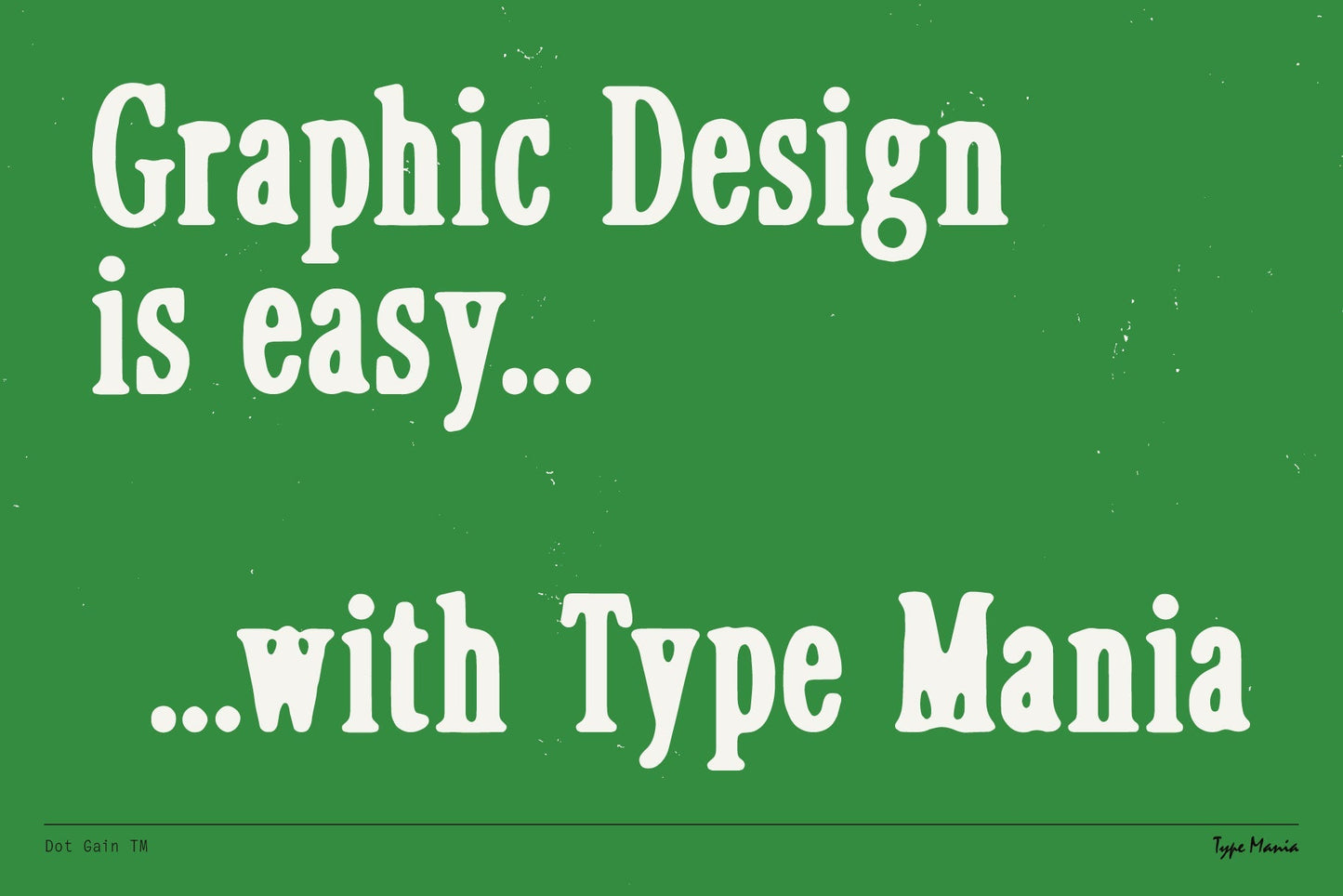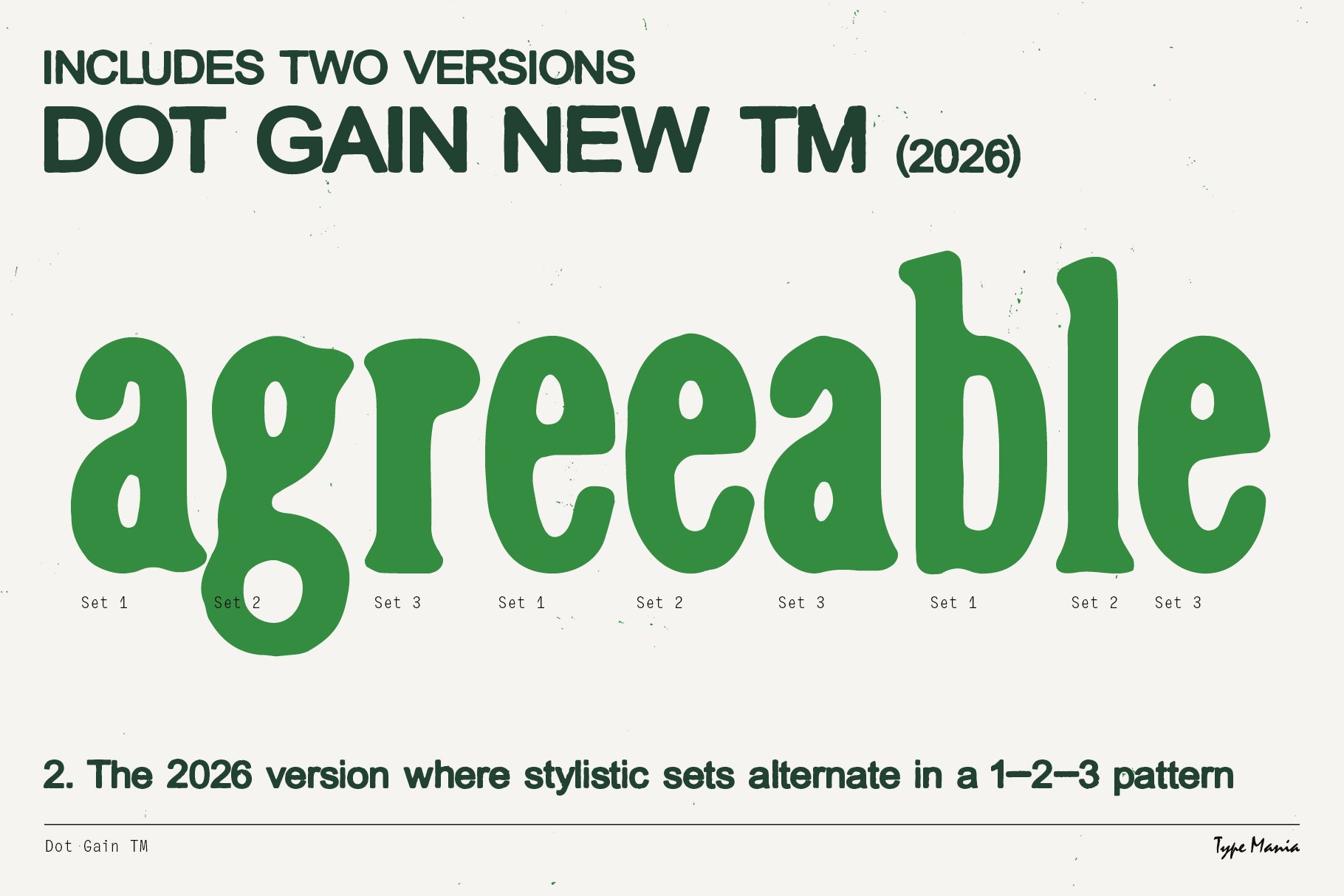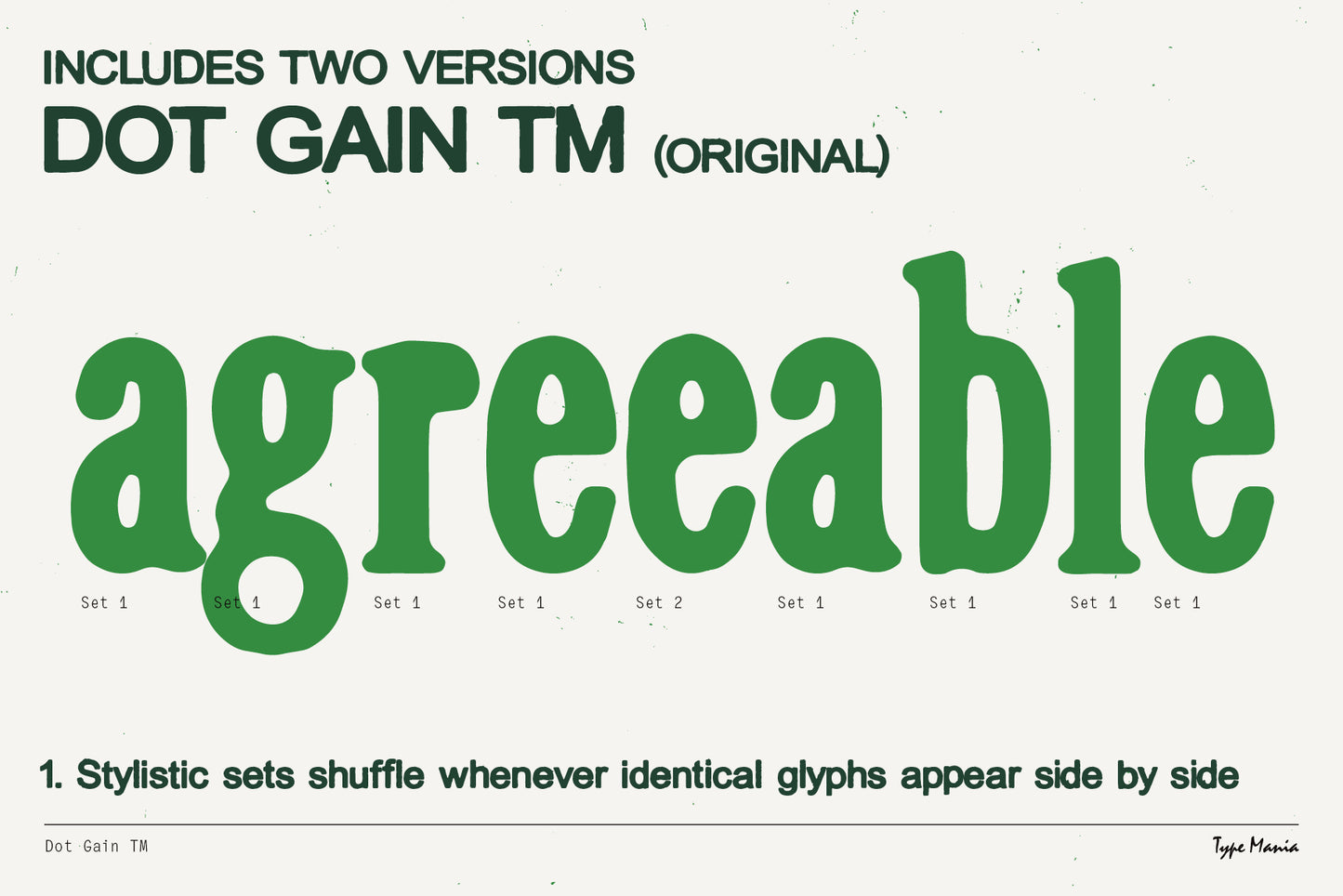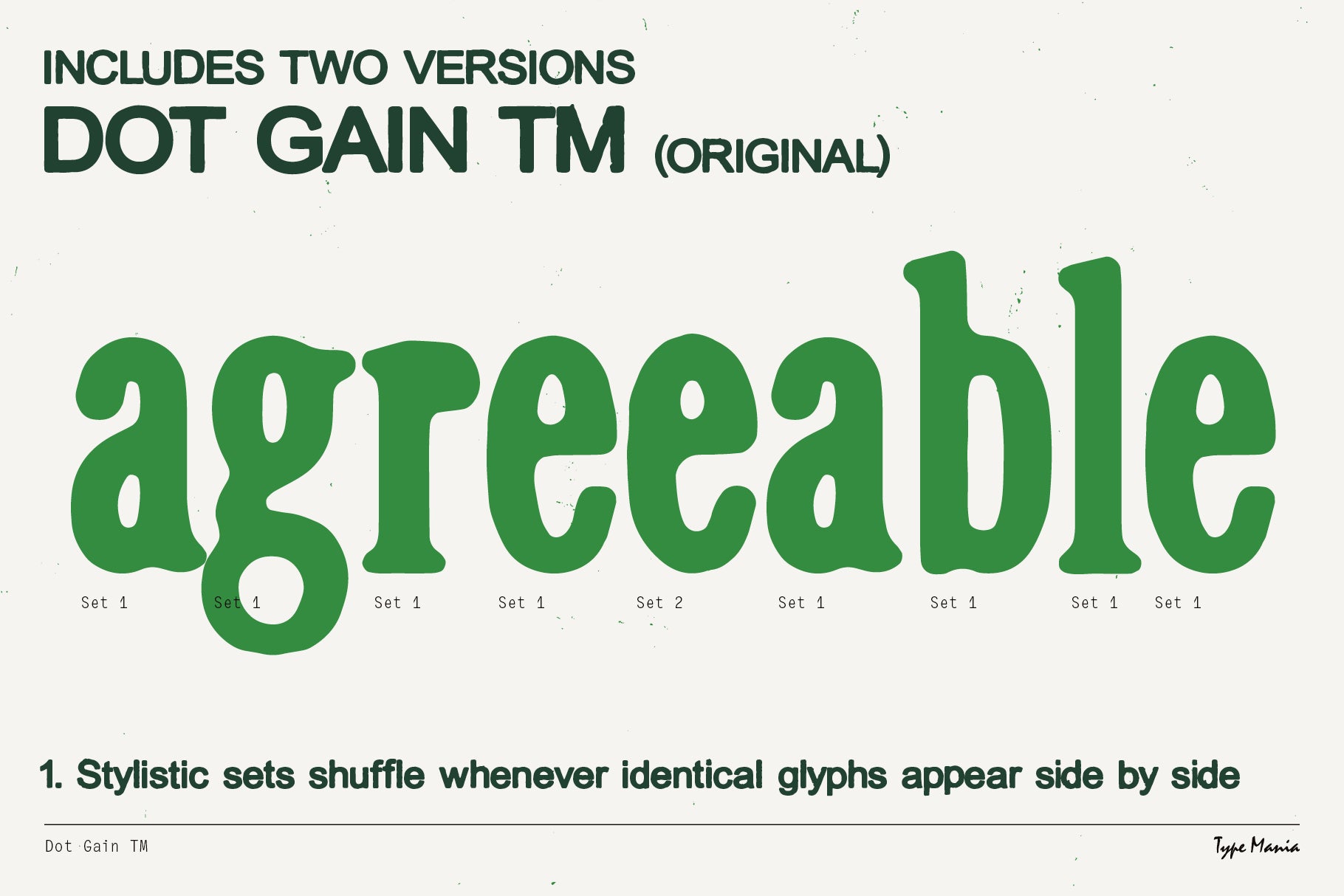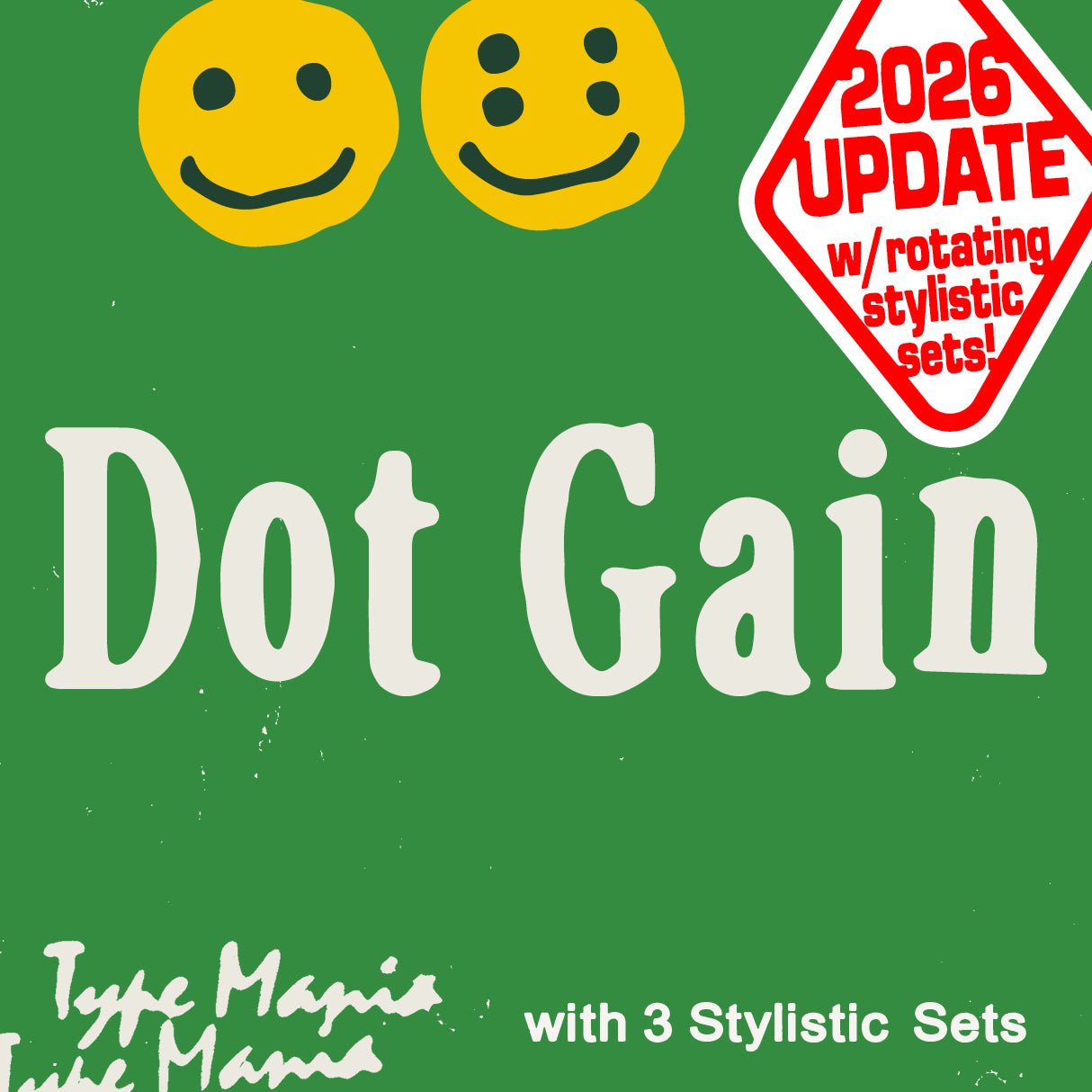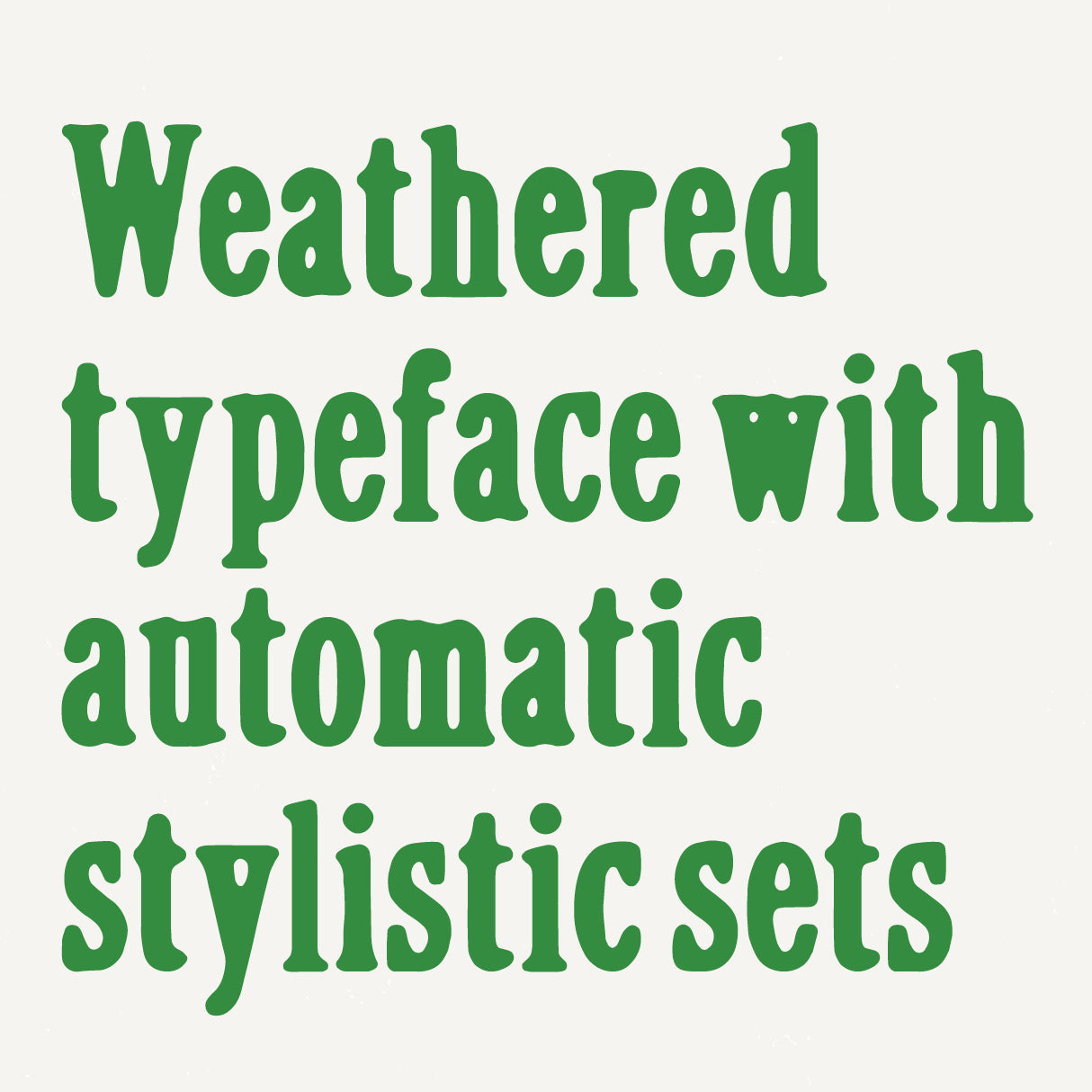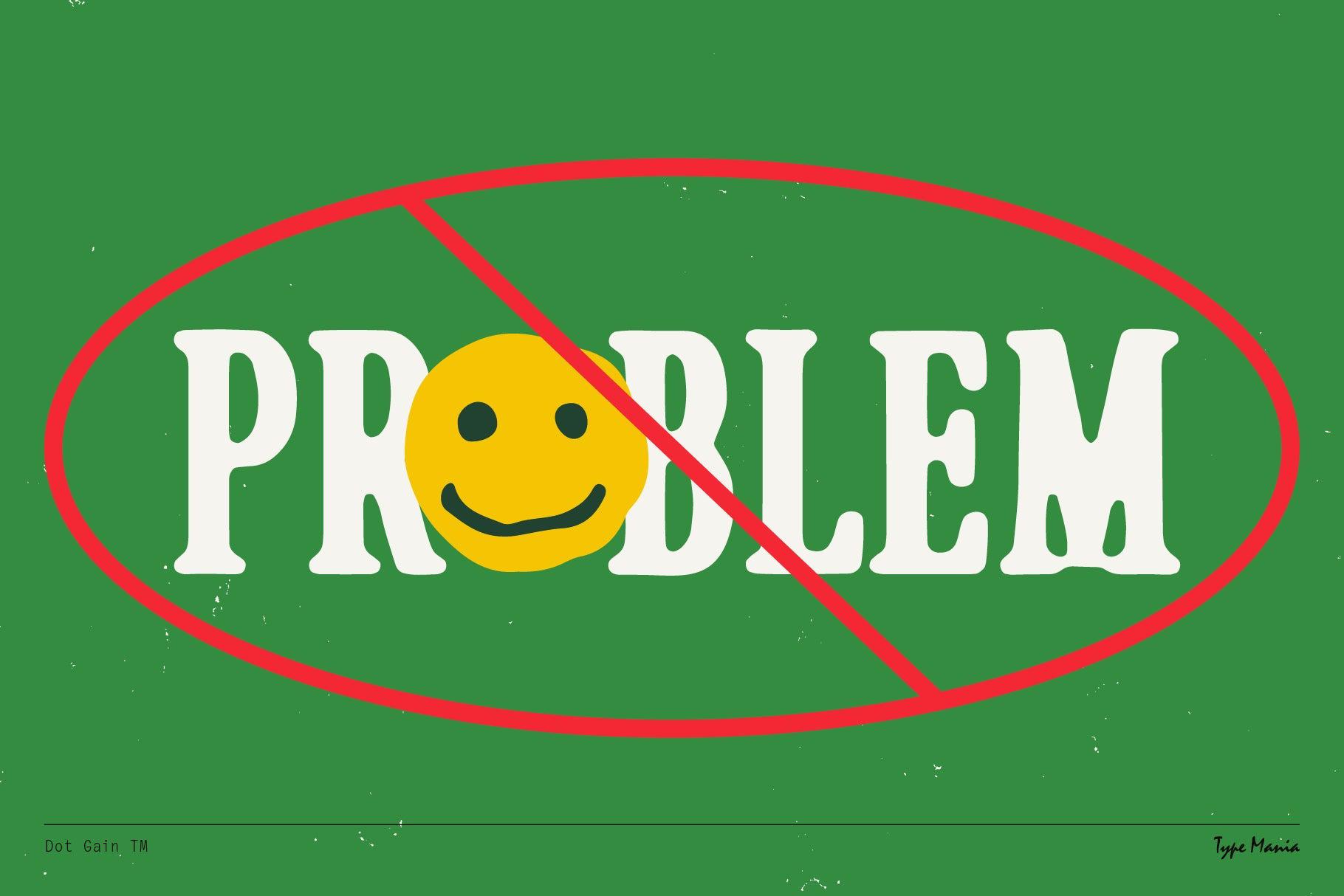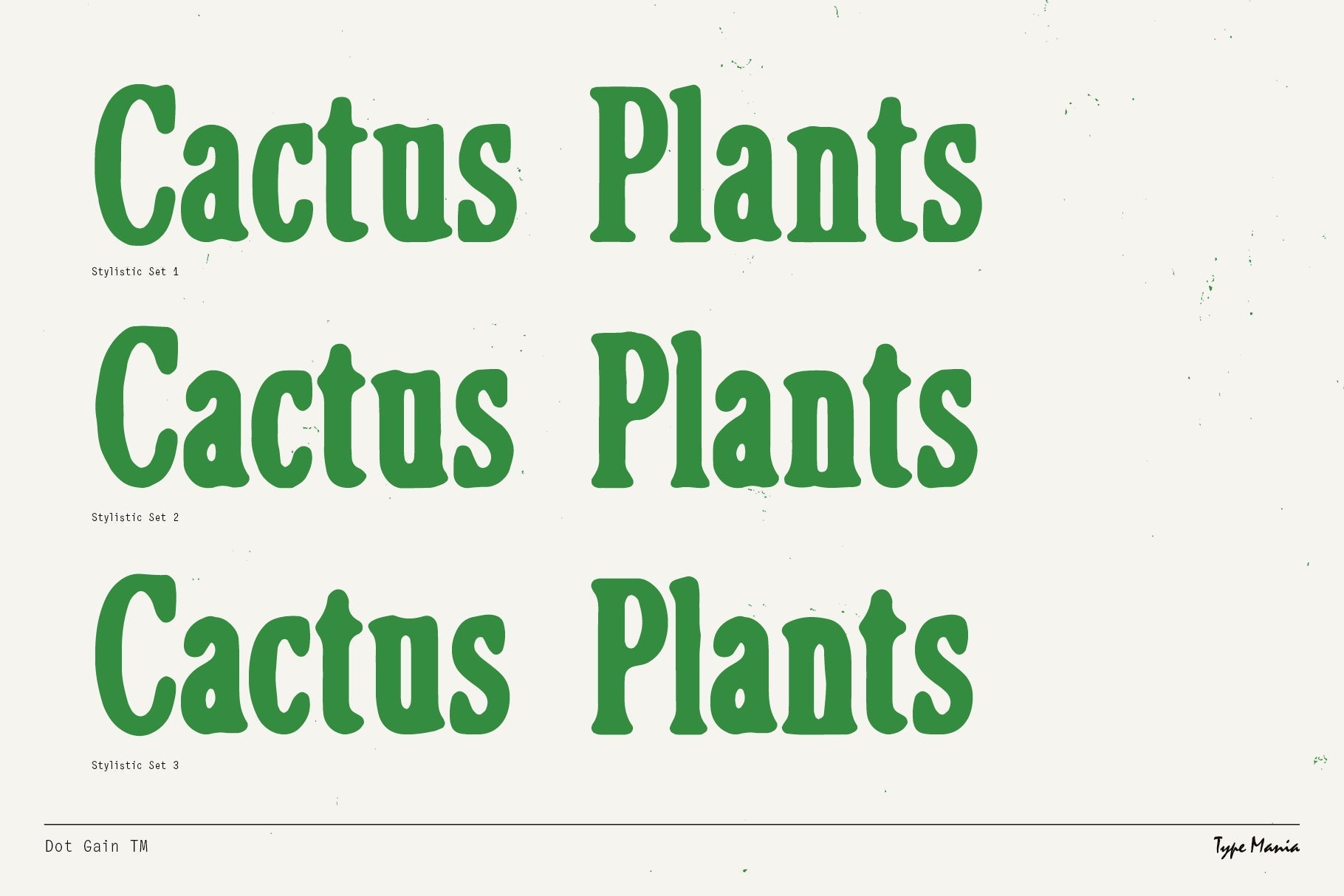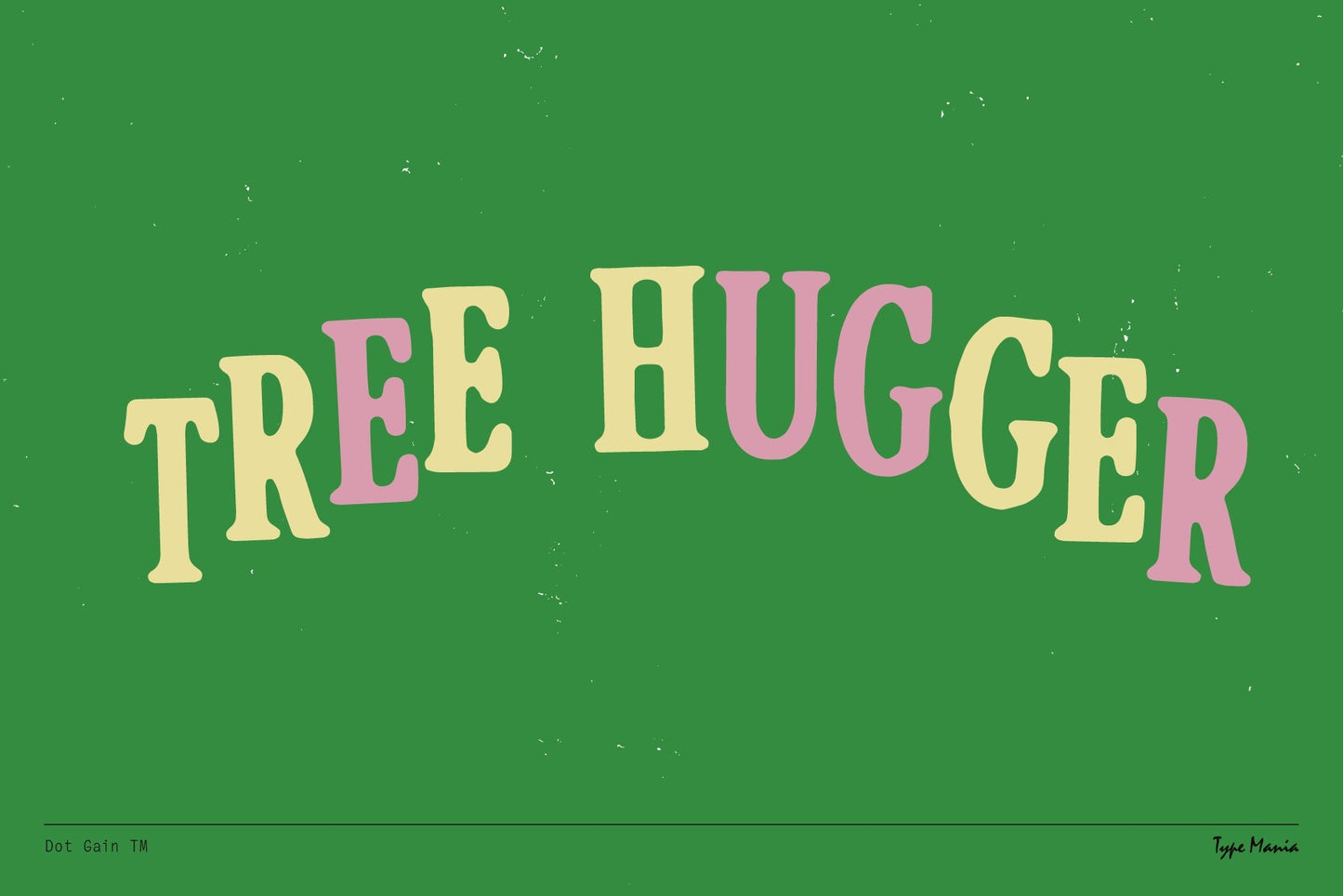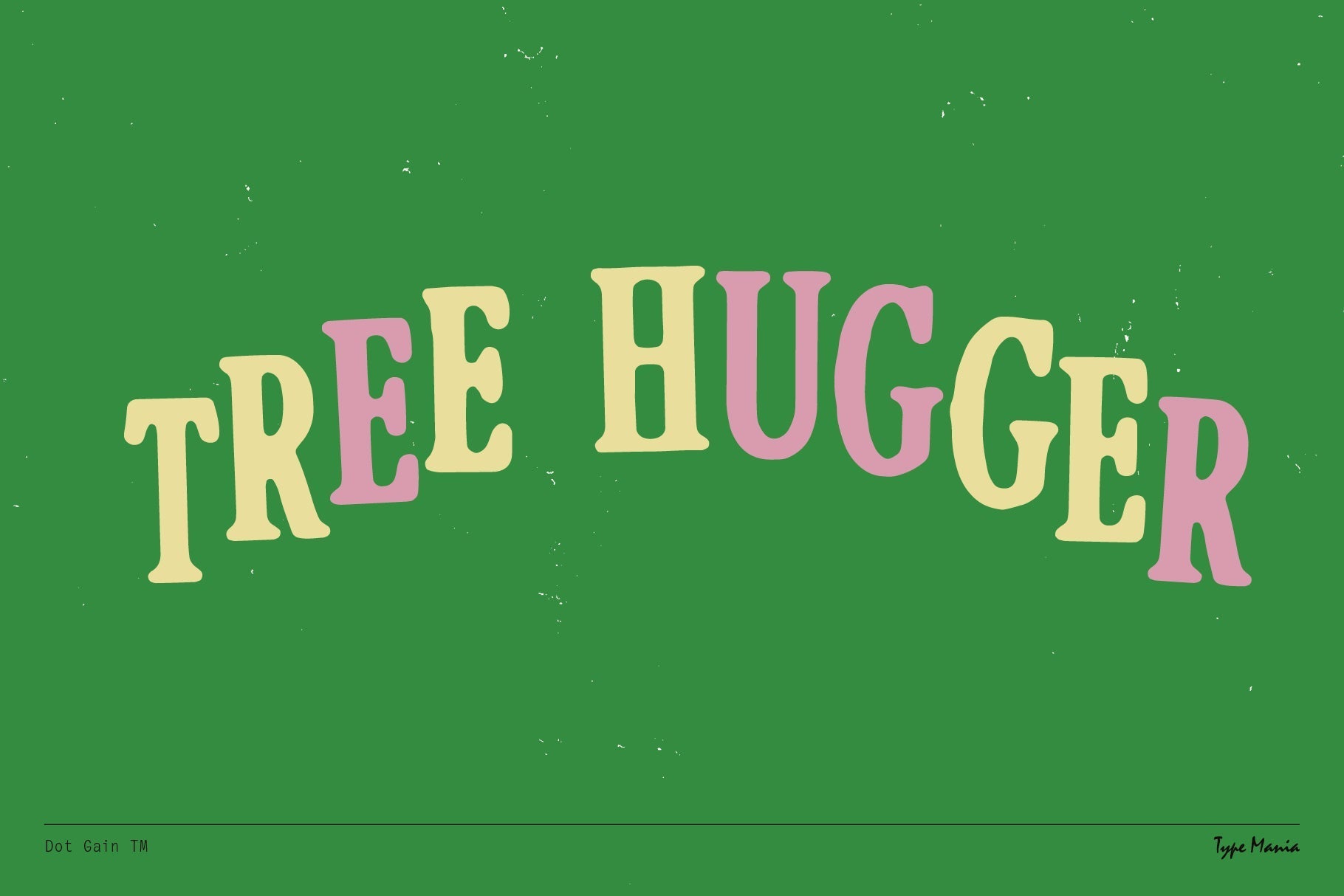
Dot Gain TM
Get cozy with Dot Gain TM. Inspired by the gentle imperfections of yesteryears' printing presses, Dot Gain TMcaptures the essence of a bygone era with its scruffy appearance, yet remains unmistakably contemporary, offering a nod to the past with a modern twist (–‿♥)
- 3 stylistic sets
- Includes two versions of the font: 1. Stylistic sets shuffle whenever identical glyphs appear side by side, 2. A new version where stylistic sets alternate in a 1–2–3 pattern, when the Contextual Alternates is turned on.